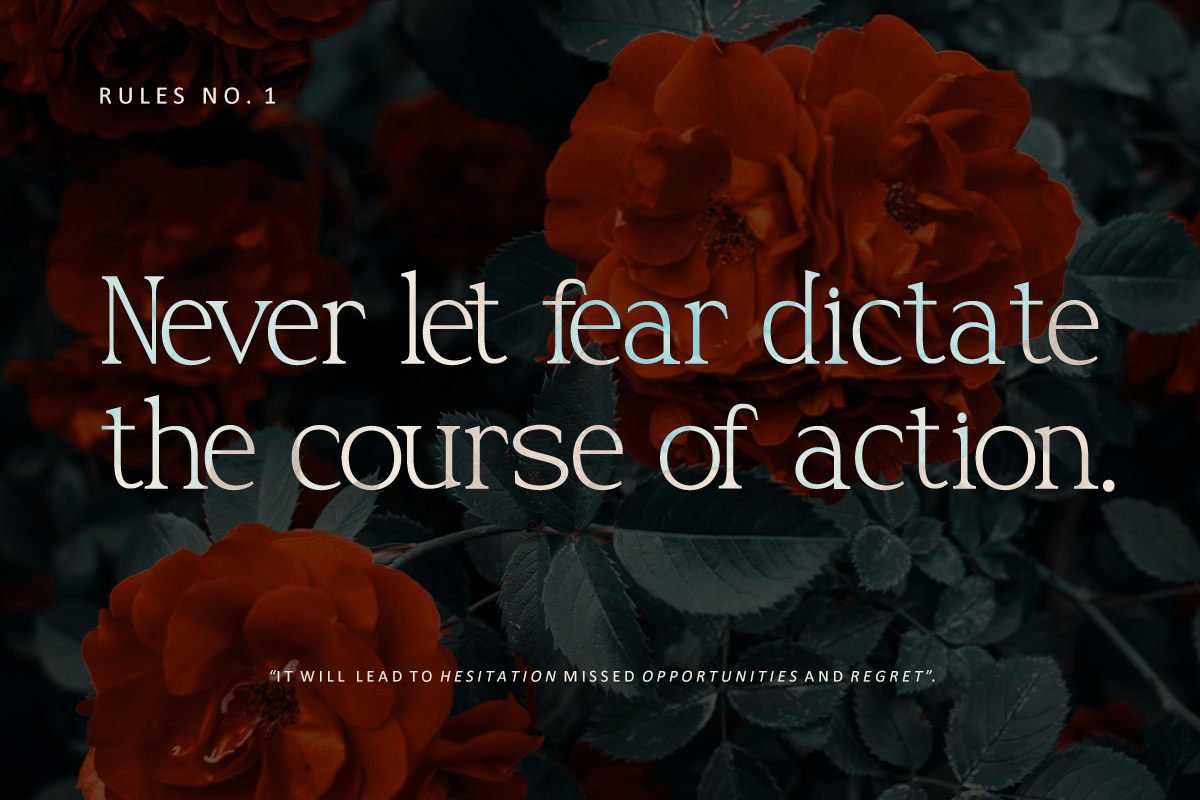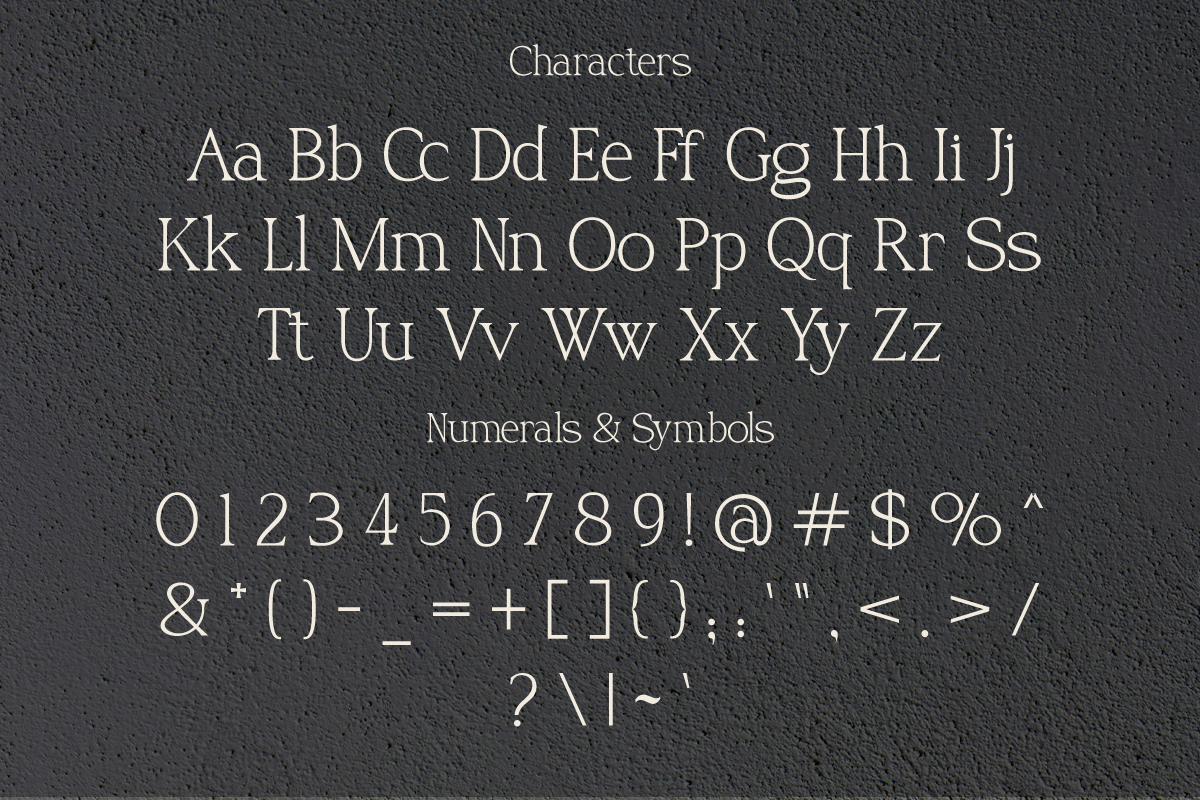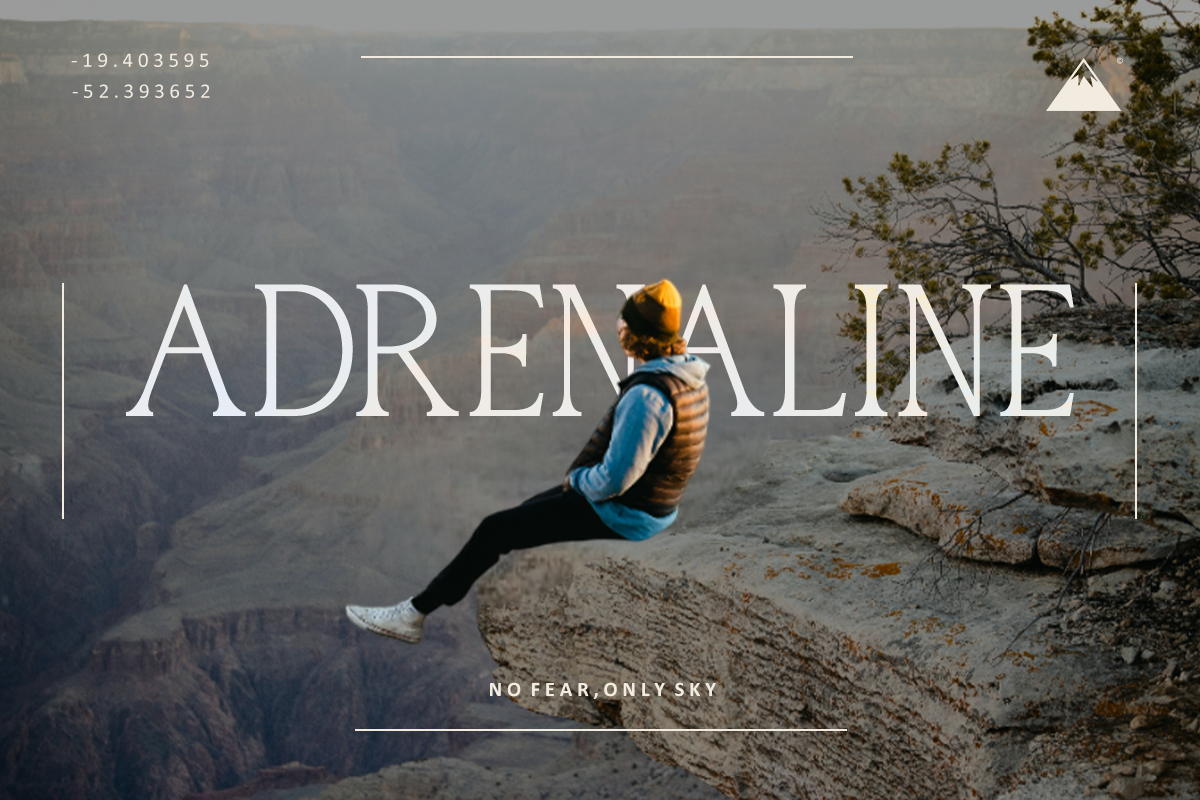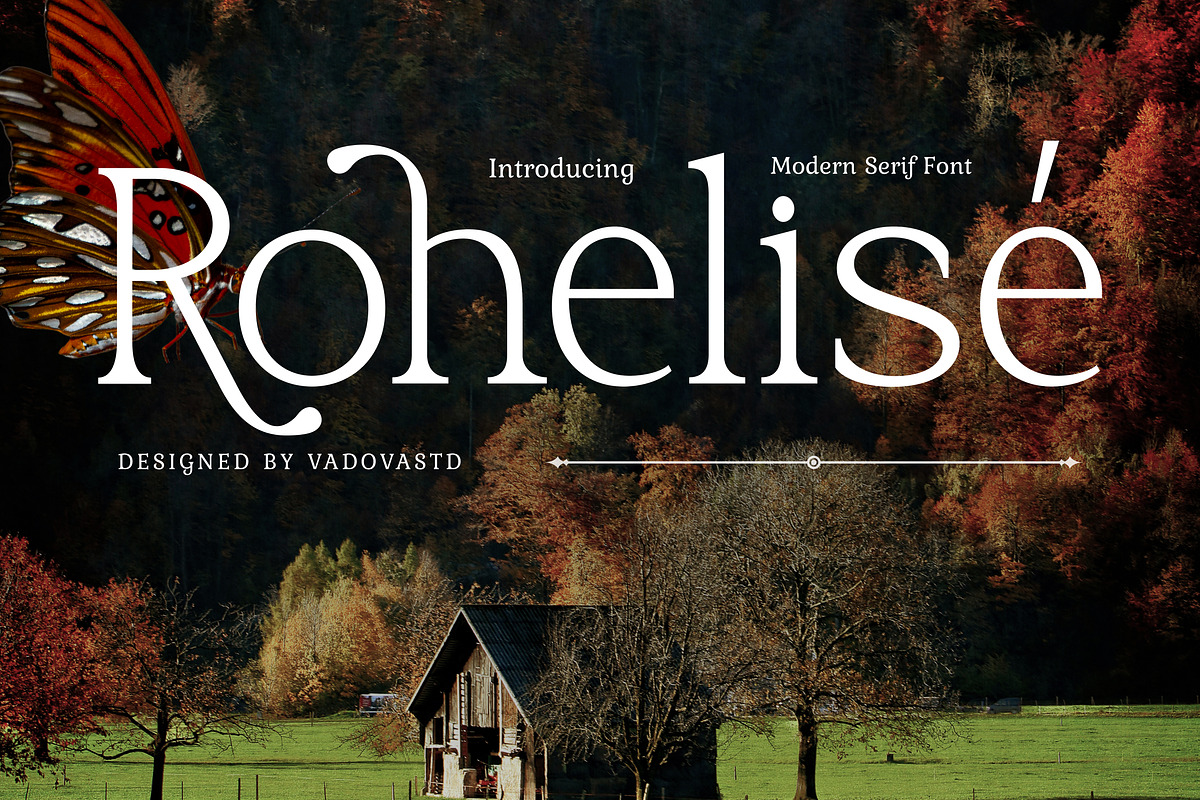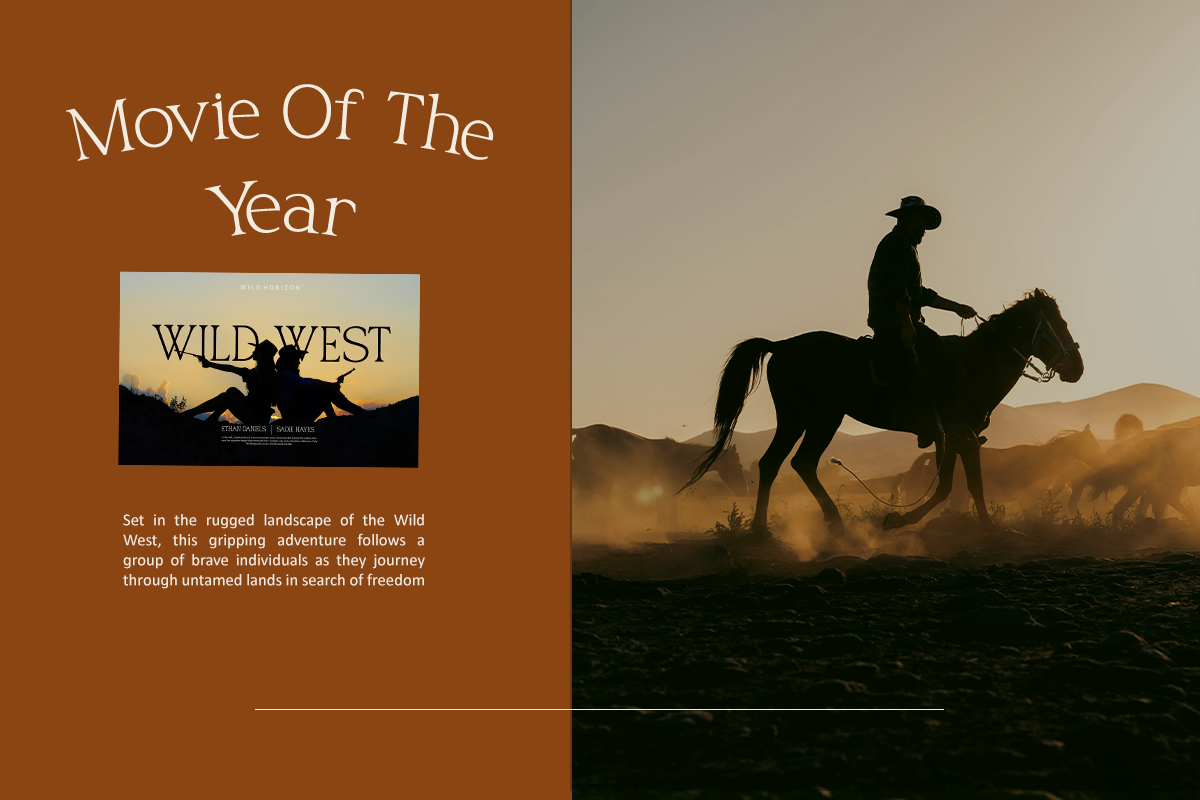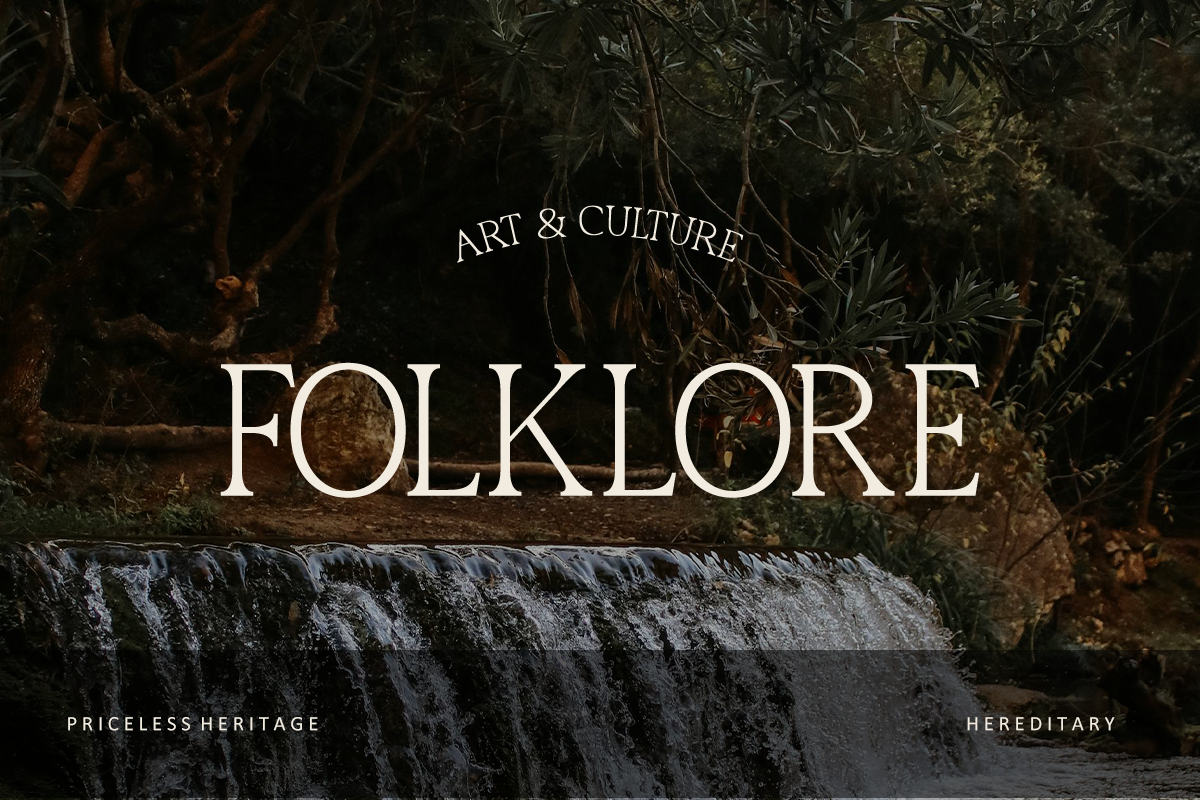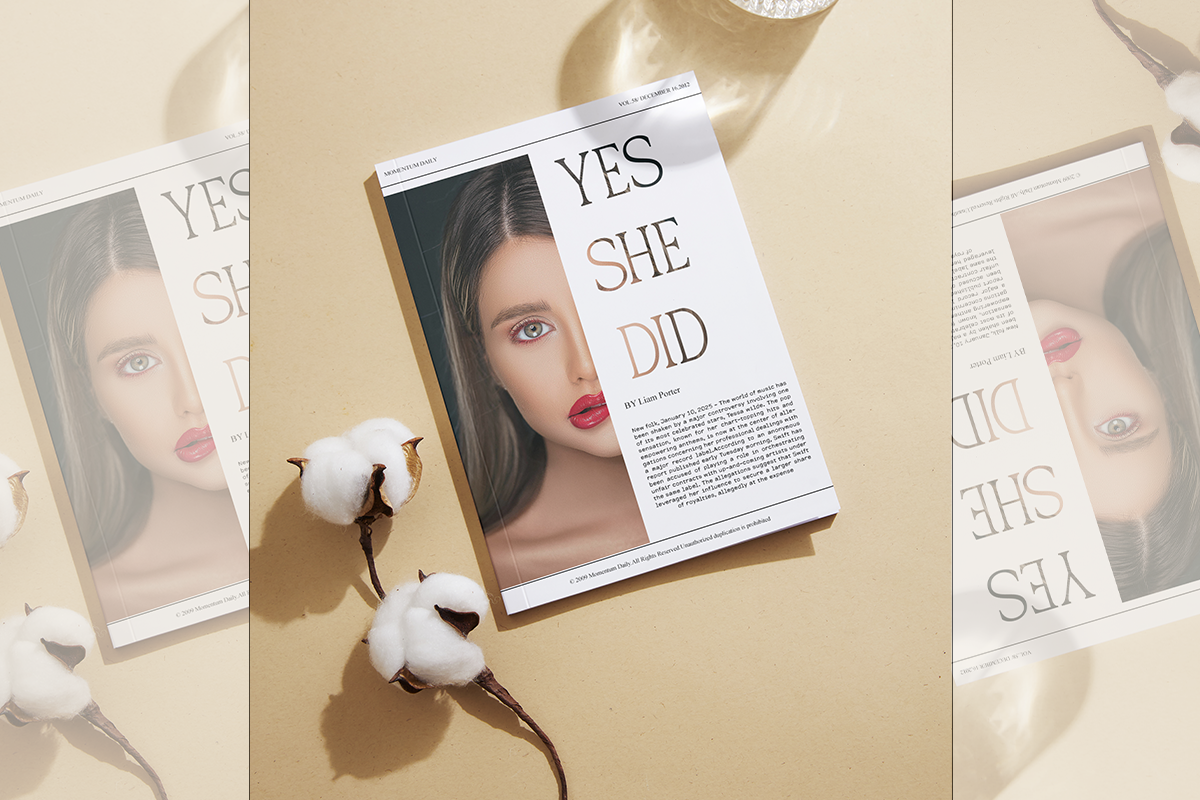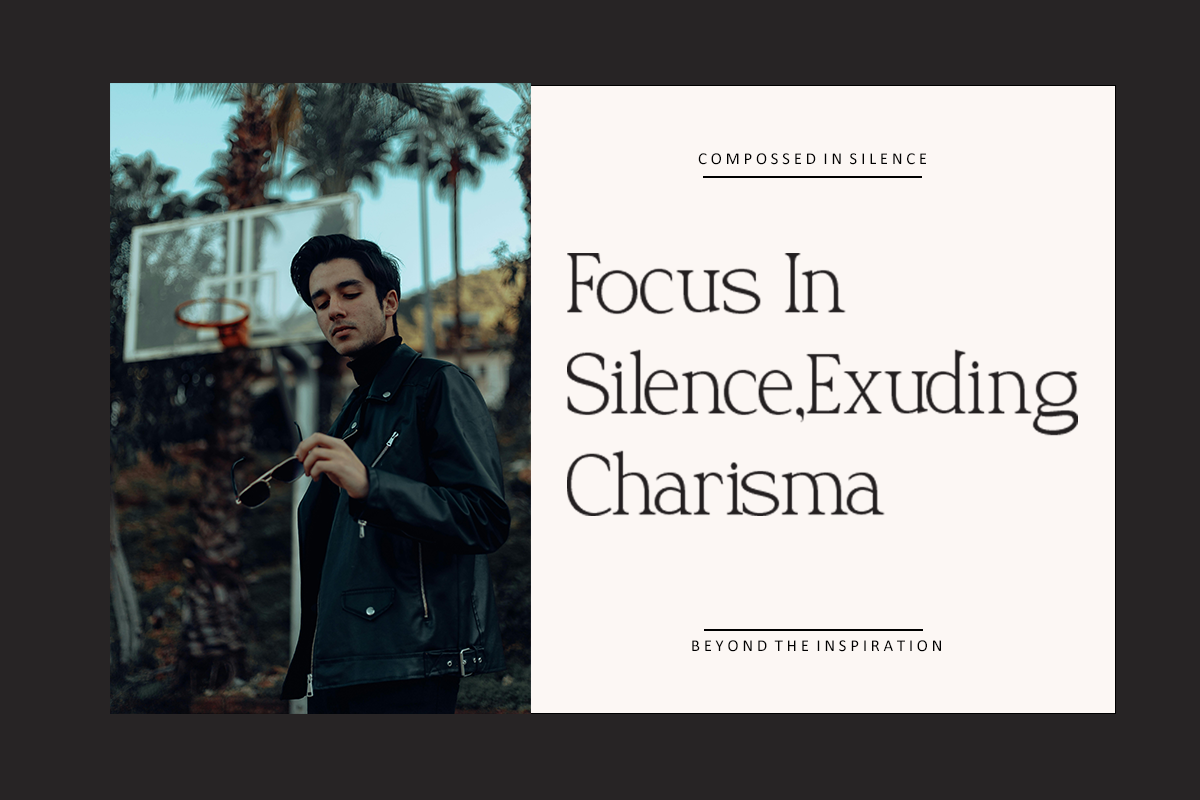
Rohelise - Modern Classic Serif
Rohelisé is a refined serif font that merges modern elegance with timeless artistry. Its high-contrast strokes and graceful curves deliver sophistication, while decorative letter details bring a unique character to the design. Built to stand out, this typeface embodies both strength and beauty in perfect balance.
This font captures the essence of luxury and refinement—ideal for projects that demand a classy, premium touch. Whether used for fashion editorials, wedding stationery, logo design, or luxury packaging, Rohelisé ensures every word feels graceful, stylish, and unforgettable.
Why Designers Love It:
Elegant serif design with artistic decorative details.
High-contrast strokes for dramatic and sophisticated appeal.
Perfect mix of modern style and timeless refinement.
Unique letterforms that elevate branding and editorial projects.
Uppercase & Lowercase Letters
Alternates & Ligatures for stylistic options
Best Use Cases:
Fashion & Beauty Branding
Editorial Layouts & Magazine Covers
Luxury Packaging & Product Labels
Wedding Invitations & Event Stationery
Creative Logo Design & Identity Systems
High-End Marketing Campaigns
Elevate your projects with Rohelisé, a modern serif that blends elegance and creativity. More than just a typeface, it’s a statement of luxury and artistry. Add Rohelisé to your collection and make every design truly unforgettable.